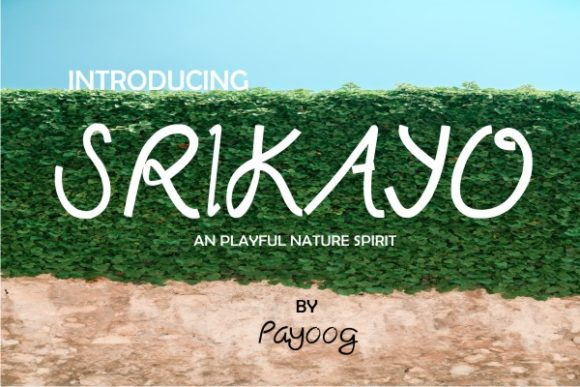
Srikayo Font
About Srikayo Font
The Srikayo is a dynamic and fluid typeface. It has a natural style and comes with an editable design as a bonus.
It’s great for a logo, invitation, watermark photography, beautiful quote and much more.